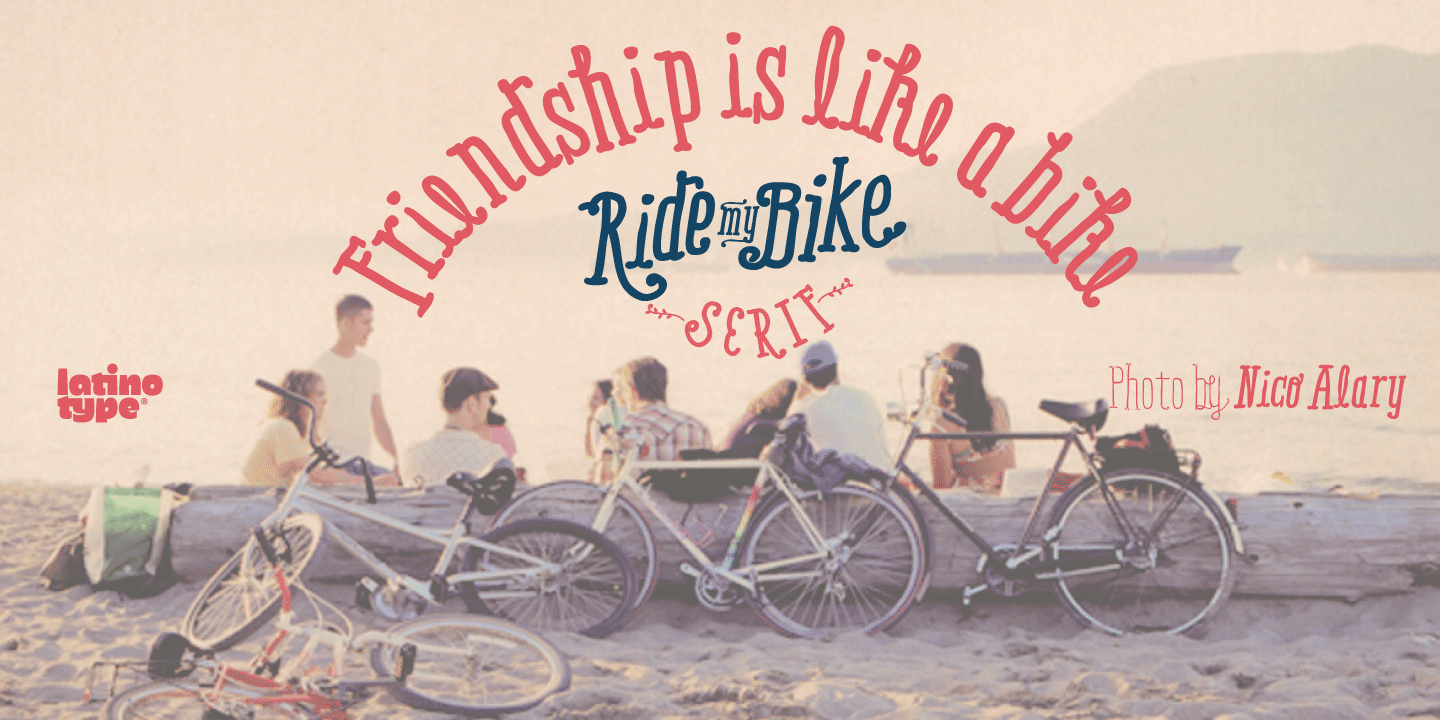
The Ride my Bike Serif Font is an excellent choice for designs that aim for a charming, slightly playful, and distinctly handcrafted aesthetic with a touch of vintage appeal. Imagine it gracing the logo of a bespoke bicycle shop, adding a whimsical touch to a local cafe's menu, or bringing a nostalgic, inviting feel to artisanal product packaging. It's also perfectly suited for creative social media graphics, charming event invitations, unique blog headers, and any project where you want to convey a sense of individuality, lightheartedness, and a unique, artistic flair. Its often warm serifs, subtle imperfections, and approachable appearance make it ideal for conveying sincerity and a cheerful spirit.
What makes the Ride my Bike Serif Font so exciting is its ability to instantly infuse a design with a feeling of authentic human touch and creative expression. It frequently features a natural, slightly irregular stroke and a unique character that mimics genuine hand-drawn lettering, making it feel organic and incredibly relatable. This font has a comforting and distinctive personality that can instantly elevate your design, making it feel both quaint and expressively artistic. It’s designed to capture attention with its unassuming beauty, ensuring your message is not just seen, but felt with a sense of delightful authenticity.
The Ride my Bike Serif Font family typically might offer a few key weights to best maintain its distinctive character, possibly including stylistic alternates or unique ligatures that enhance its whimsical or handcrafted appeal. While it might not always have an extensive range of weights, its strength lies in its unique visual style and inherent expressiveness. These variations empower designers to create a truly inviting and memorable display, ensuring the Ride my Bike Serif Font Free Download can adapt to a wide array of projects while maintaining its signature, charmingly adventurous style.